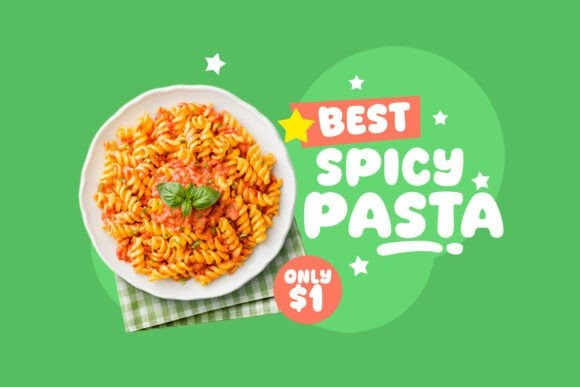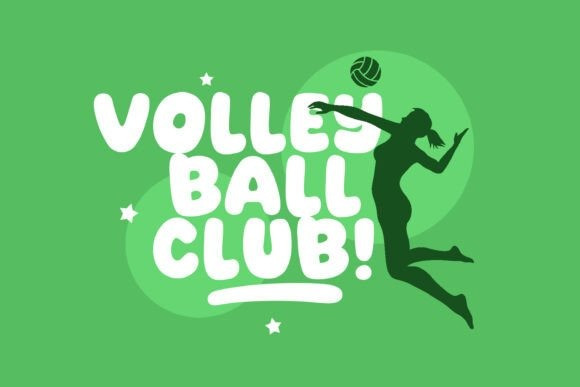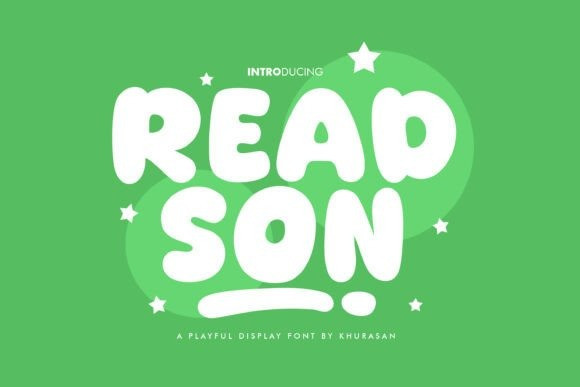
Readson Playful Font
Readson Playful Font is a modern and cute display font perfect for posters, logos, magazines, book covers, banners, and many more! Get this amazing font, and use it to create lovely designs. It can easily be matched to an incredibly laBond Time is a modern and cute display font perfect for posters, logos, magazines, book covers, banners, and many more! Get this amazing font, and use it to create lovely designs. It can easily be matched to an incredibly large set of projects, so add it to your creative ideas and notice how it makes them stand out!rge set of projects, so add it to your creative ideas and notice how it makes them stand out!